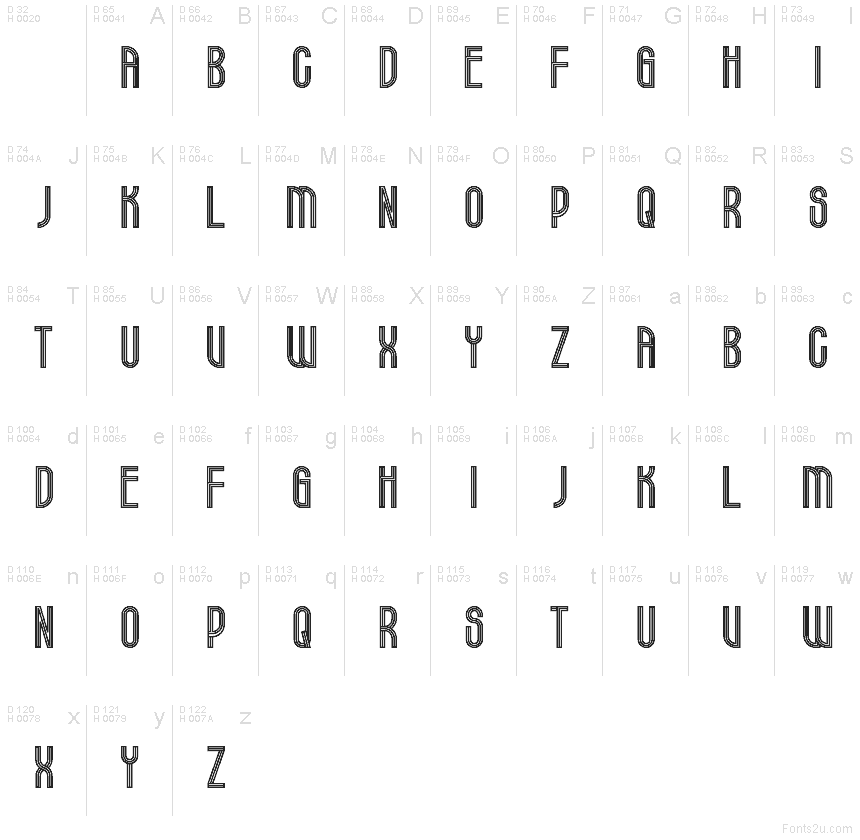
Retro Famous Extravagant font by Vladimir Nikolic is a free retro display typeface that turns every word into glowing marquee lettering. Its tall, rounded forms and triple-line strokes create a neon-like rhythm, as if the letters were bent from chrome tubing and lit from within. The consistent vertical flow keeps it readable, while the layered outlines add instant depth and a sense of motion.
Using Retro Famous Extravagant, headlines feel like signage pulled from vintage theaters and nightclubs. This free font shines on posters, event flyers, album covers, logos, packaging, and bold social graphics where you need big visual drama. It thrives at large sizes; pair it with a simple geometric sans serif for smaller text to keep layouts clean and balanced.